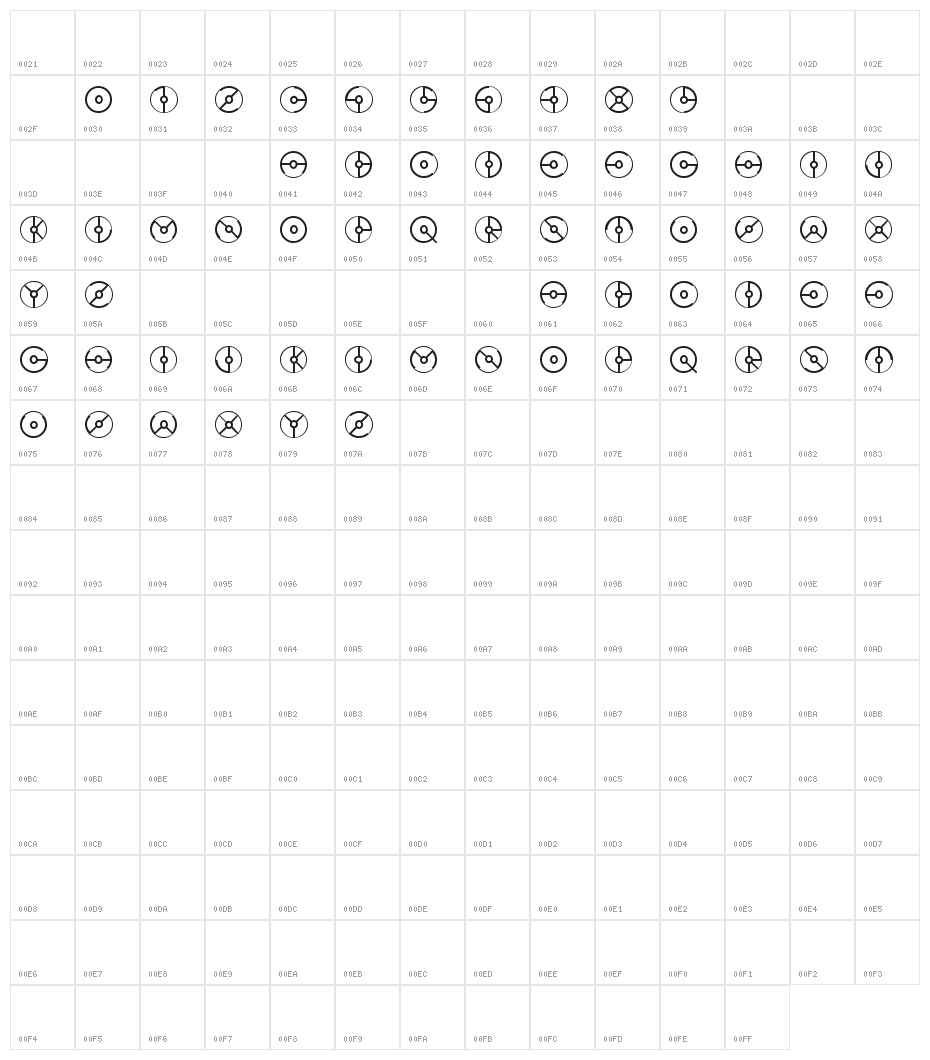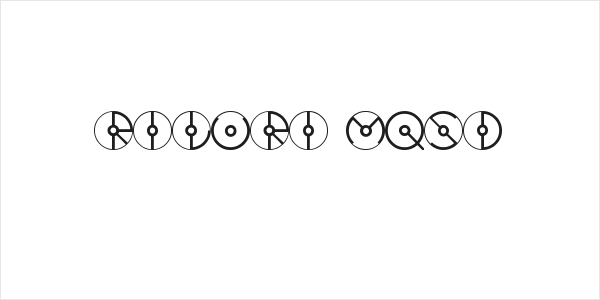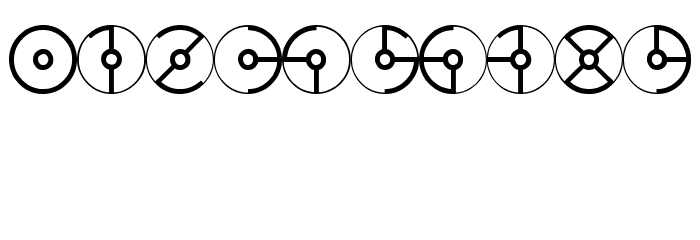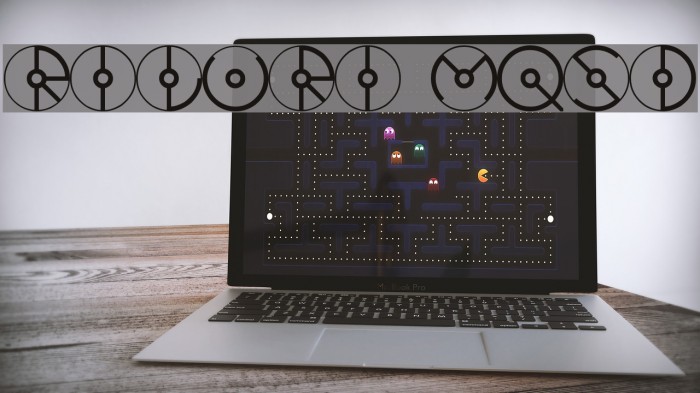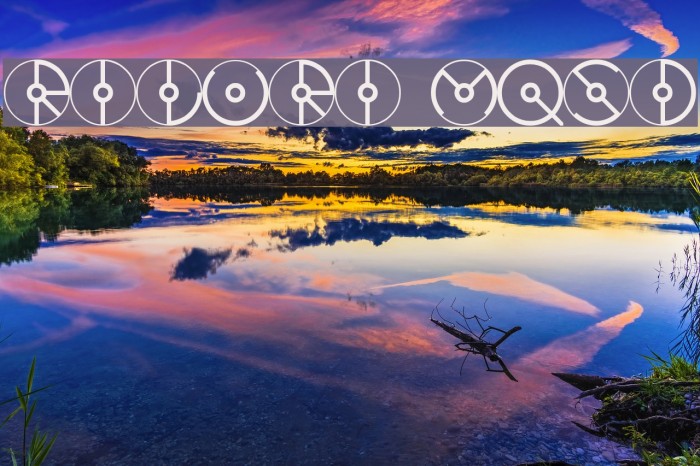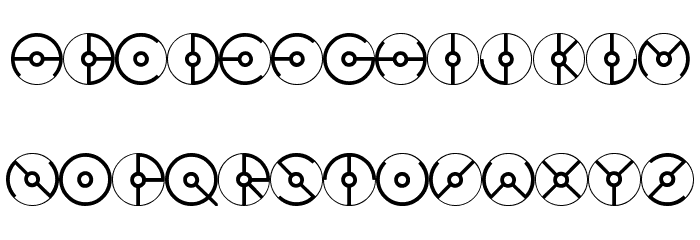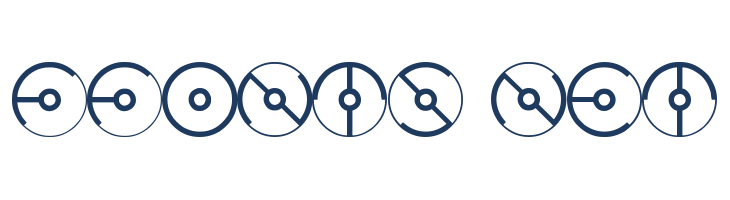
riluri-mqsd Font
This font features a unique, futuristic design where each character is enclosed within a circle, creating a cohesive and visually striking appearance. The characters are composed of geometric shapes, primarily lines and circles, giving it a modern and technological feel. The uniformity of the circular enclosures provides a sense of balance and symmetry, while the varied internal designs of each letter add an element of intrigue and complexity. This font is highly decorative, making it ideal for projects that require a bold and distinctive visual identity. Its intricate design may not be suitable for body text but excels in creating eye-catching headlines or logos.
| Proposed Projects | Perfect for sci-fi themed designs, tech company logos, futuristic posters, and video game titles. |